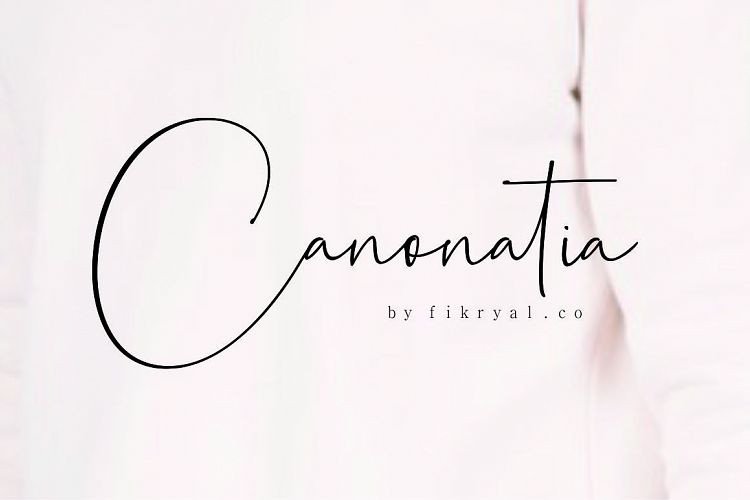
Canonatia Handwritten Font
Hello world..!! Introducing Canonatia Font. This is a beauty & natural handwritten script. It’s the perfect fit for all luxury projects, such as elegant logos and a lot more! Canonatia Handwritten Font is a new modern & stylish handwritten font. It’s Perfect for logo,branding, invitation, tittle, wedding designs, social media posts, advertisements, product packaging, product designs, label, photography, watermark, special event,magazine,web design,etc.